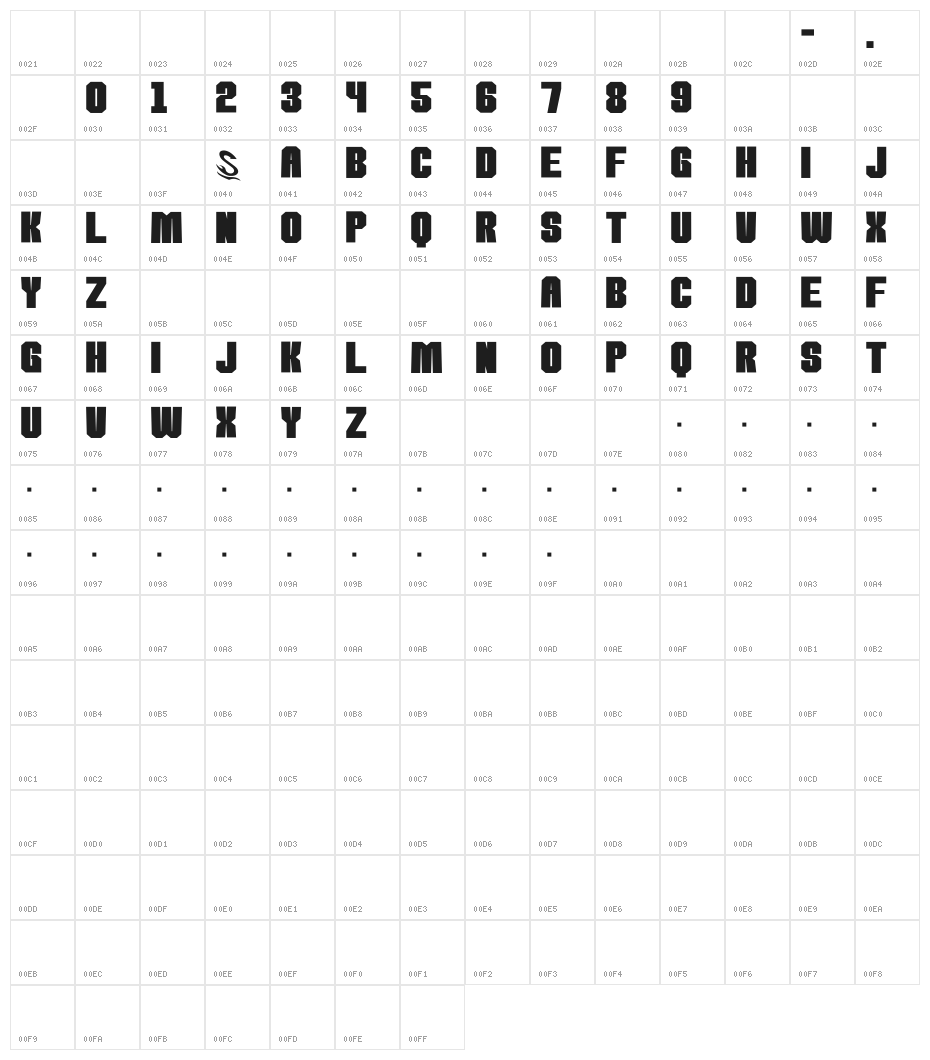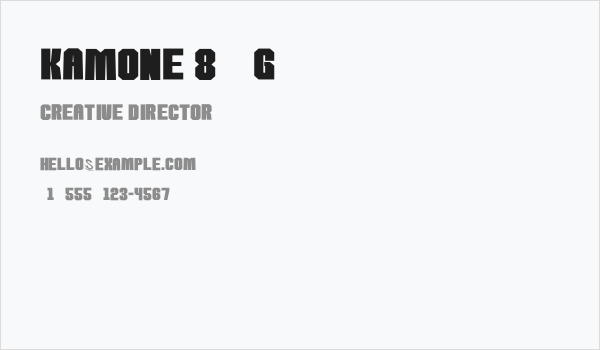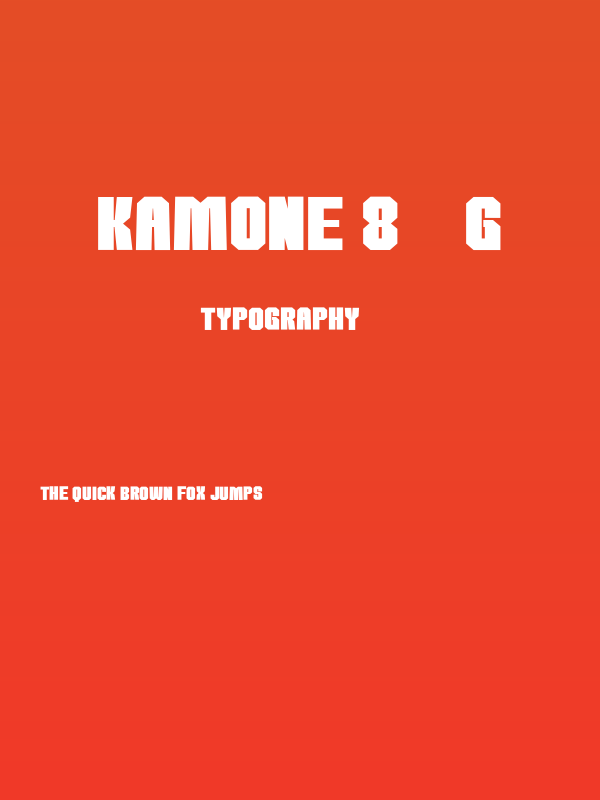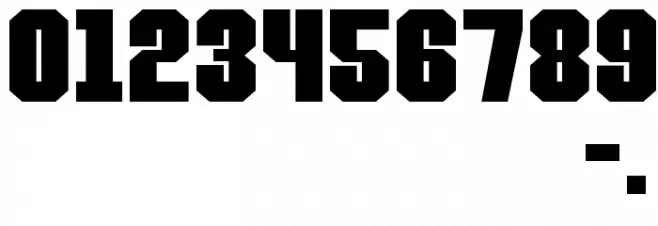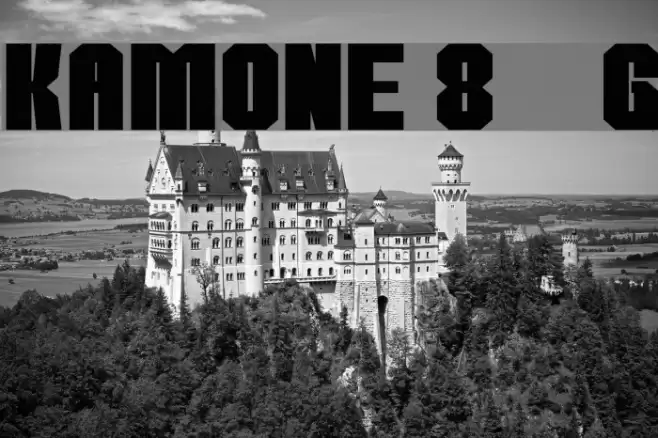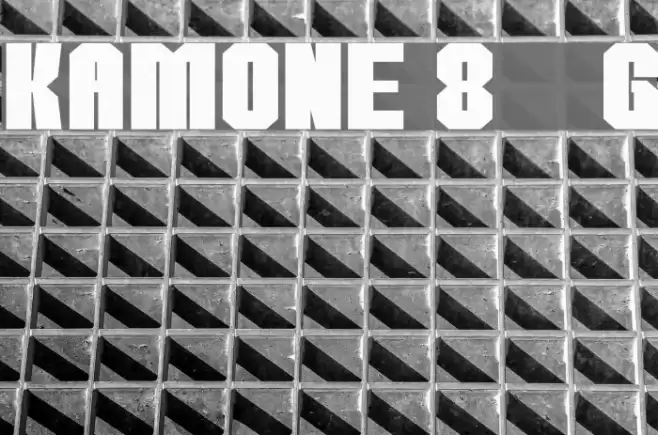
kamone 8__G Font
kamone 8__G Description
This font features a bold, geometric style with strong, angular lines and a blocky appearance. The characters are uniformly thick, creating a sense of solidity and impact. The uppercase letters are particularly striking, with a consistent height and width that gives them a powerful presence. The numbers and special characters follow the same design principles, ensuring a cohesive look across all elements. The overall design is reminiscent of industrial or sports-themed typography, making it ideal for projects that require a strong, assertive visual statement.
| Proposed Projects | Ideal for sports branding, industrial design, posters, and headlines that require impact. |